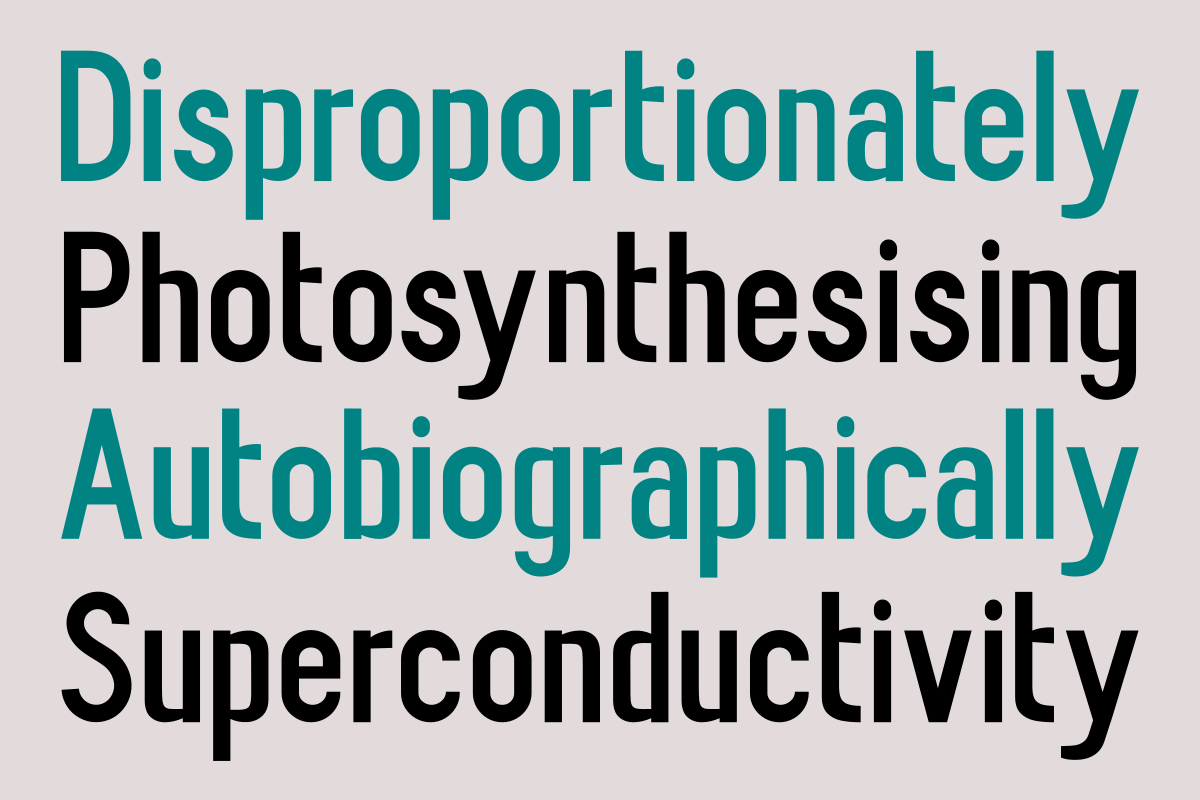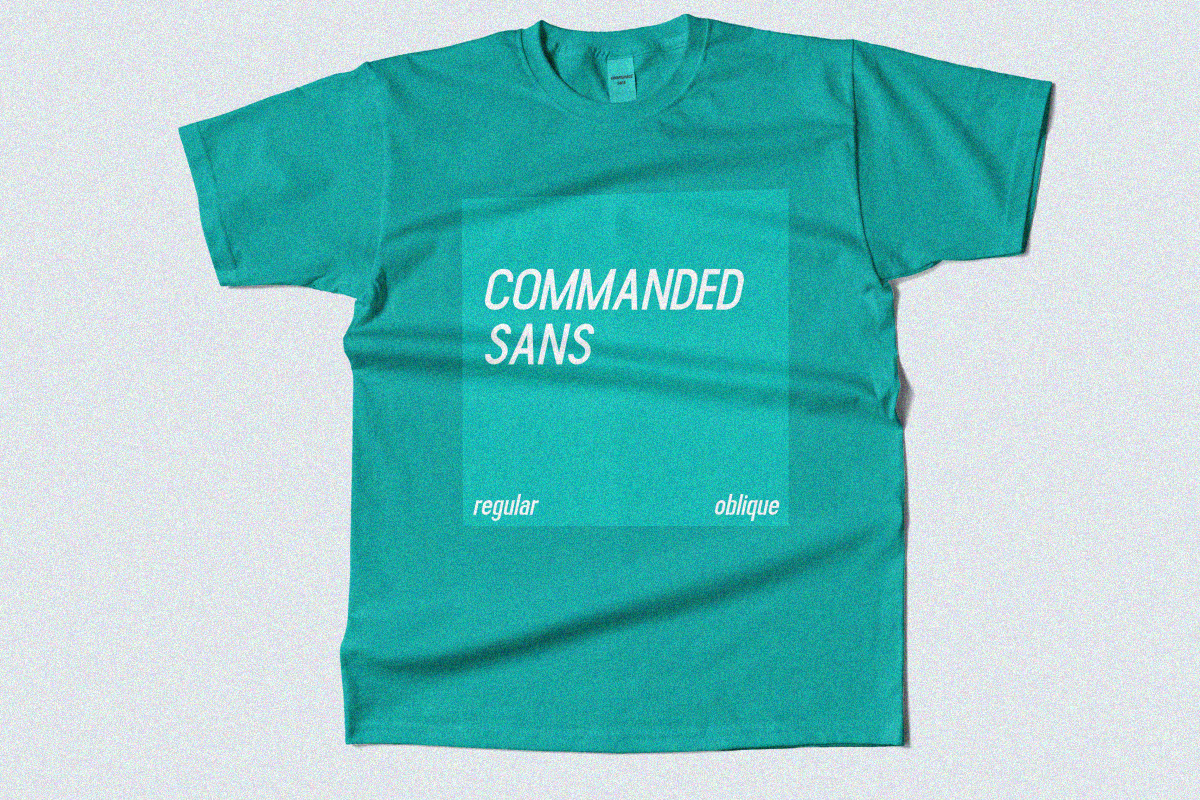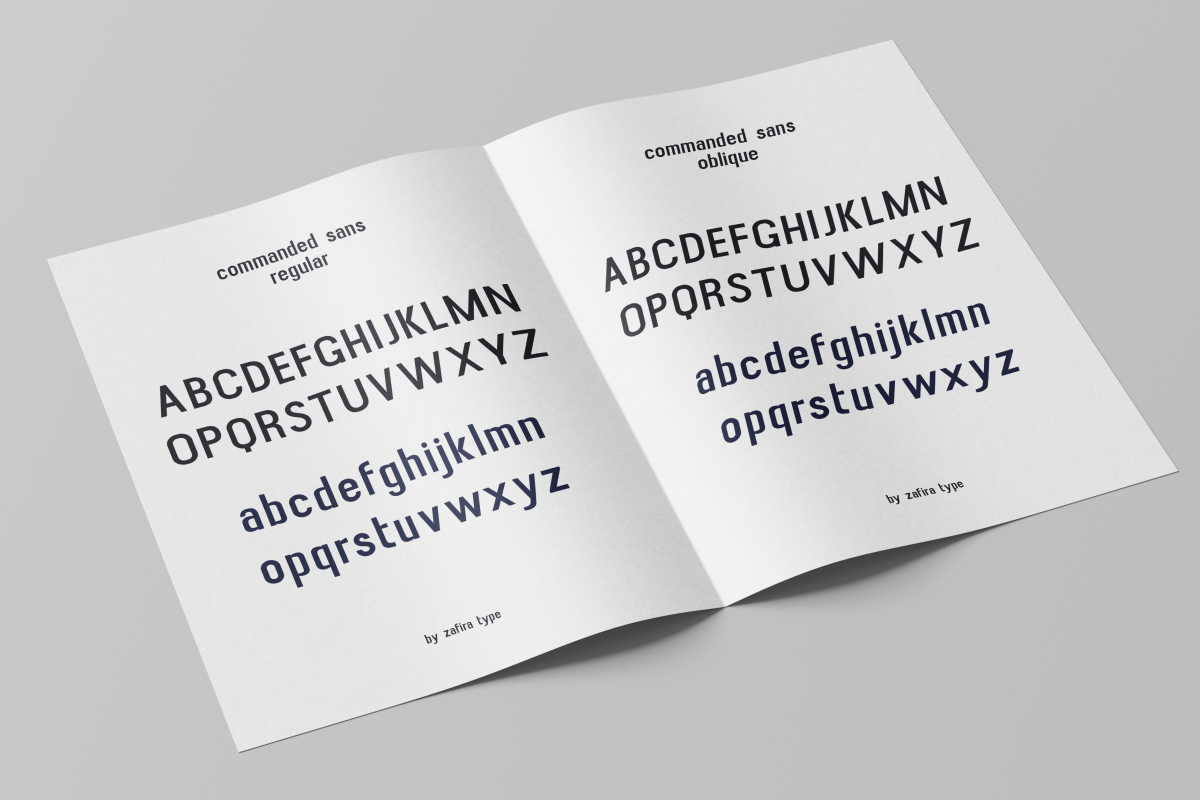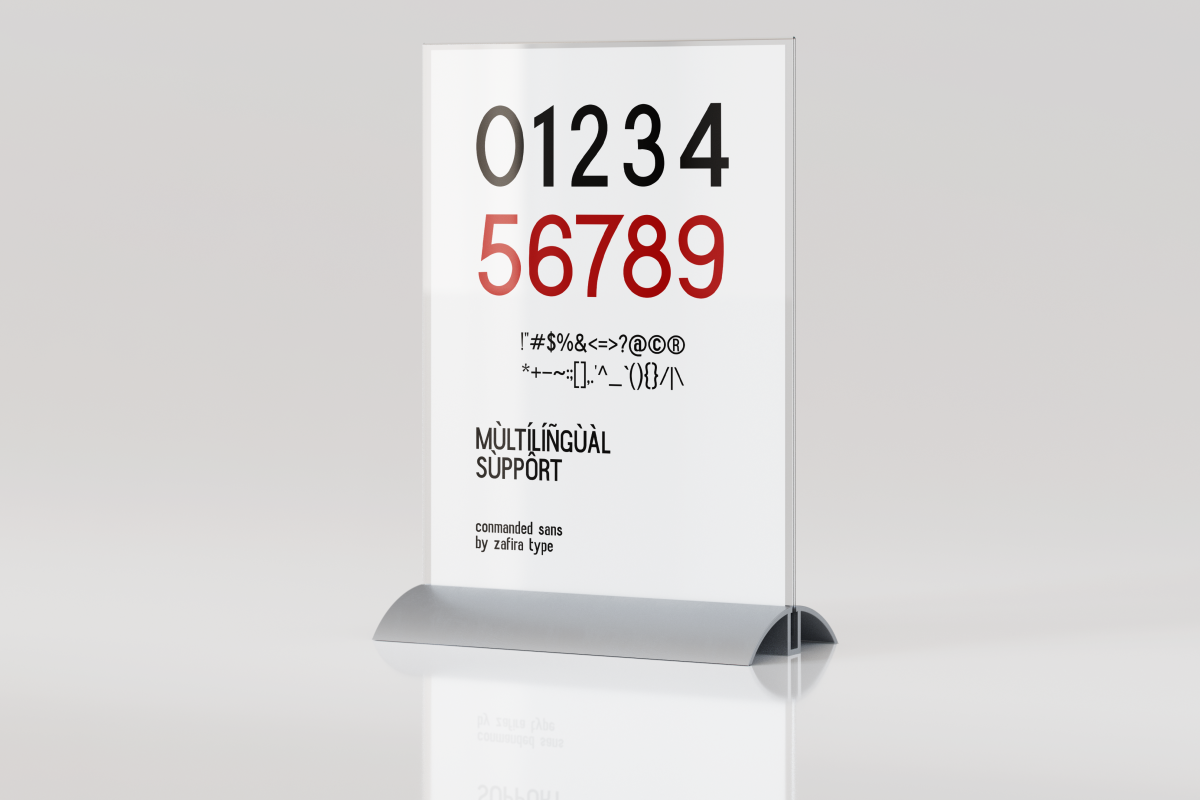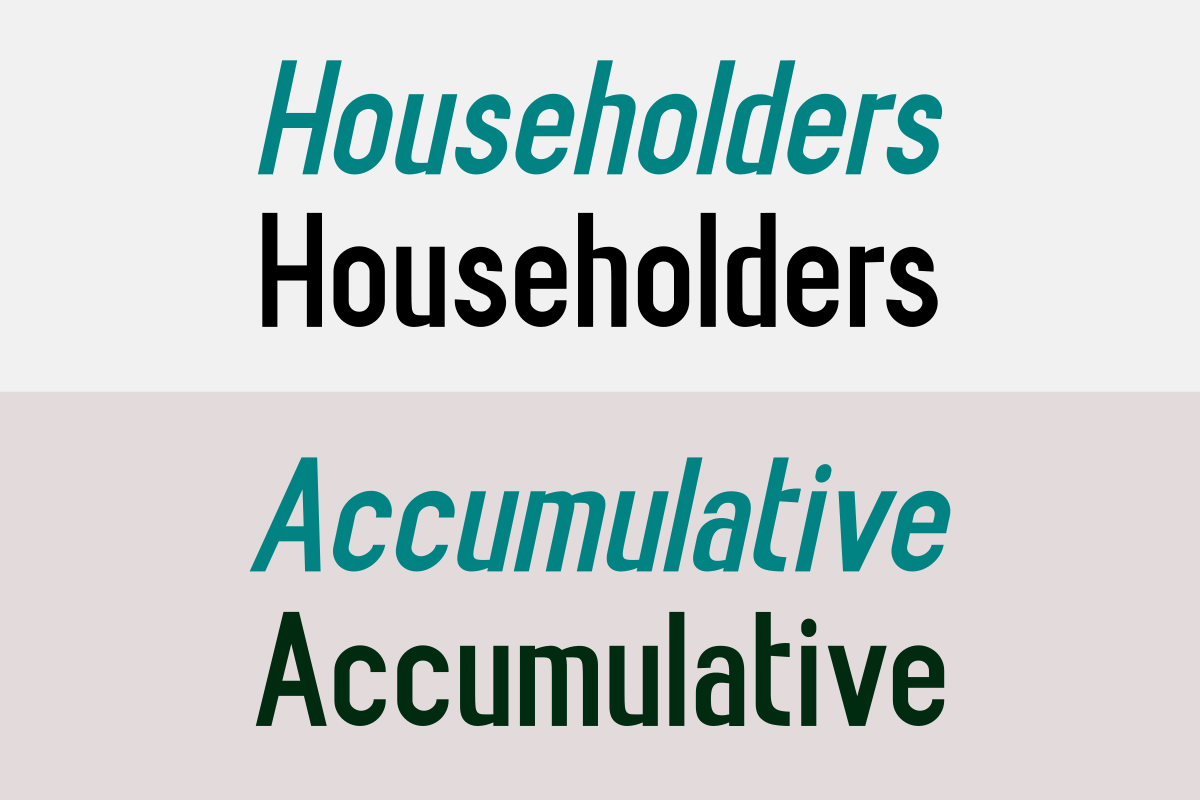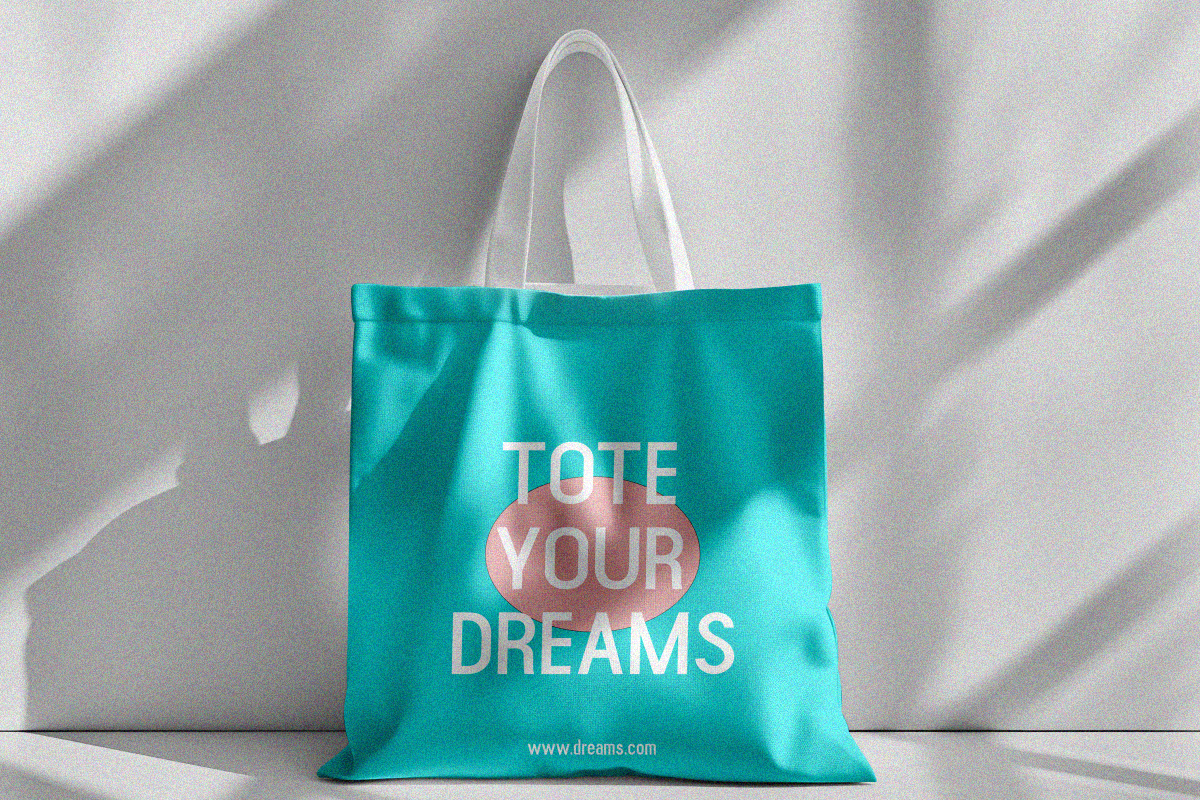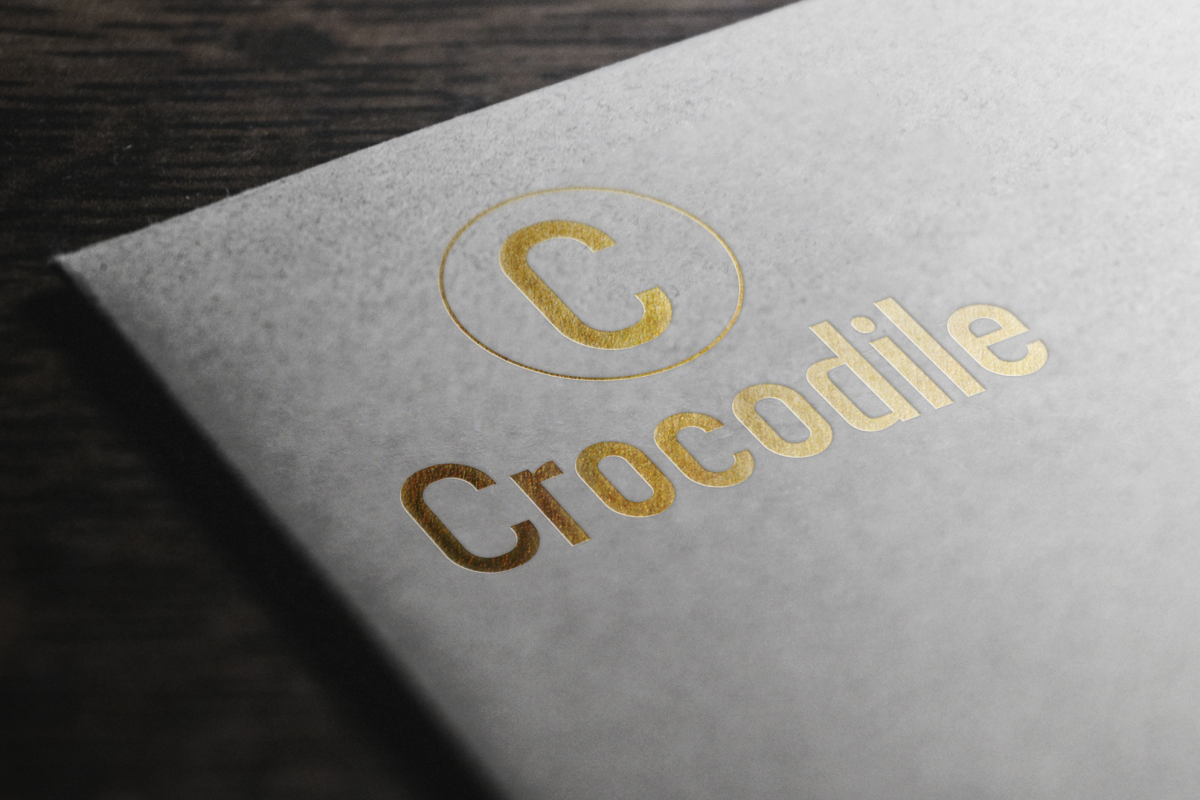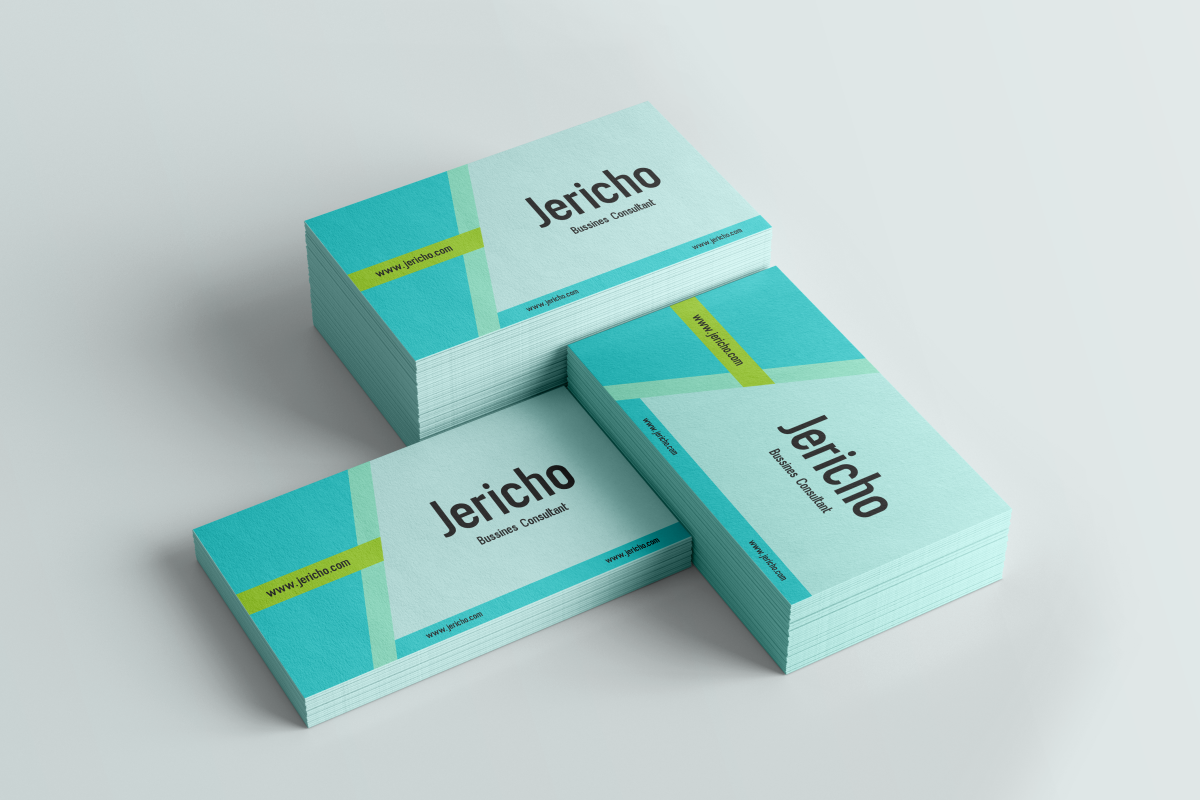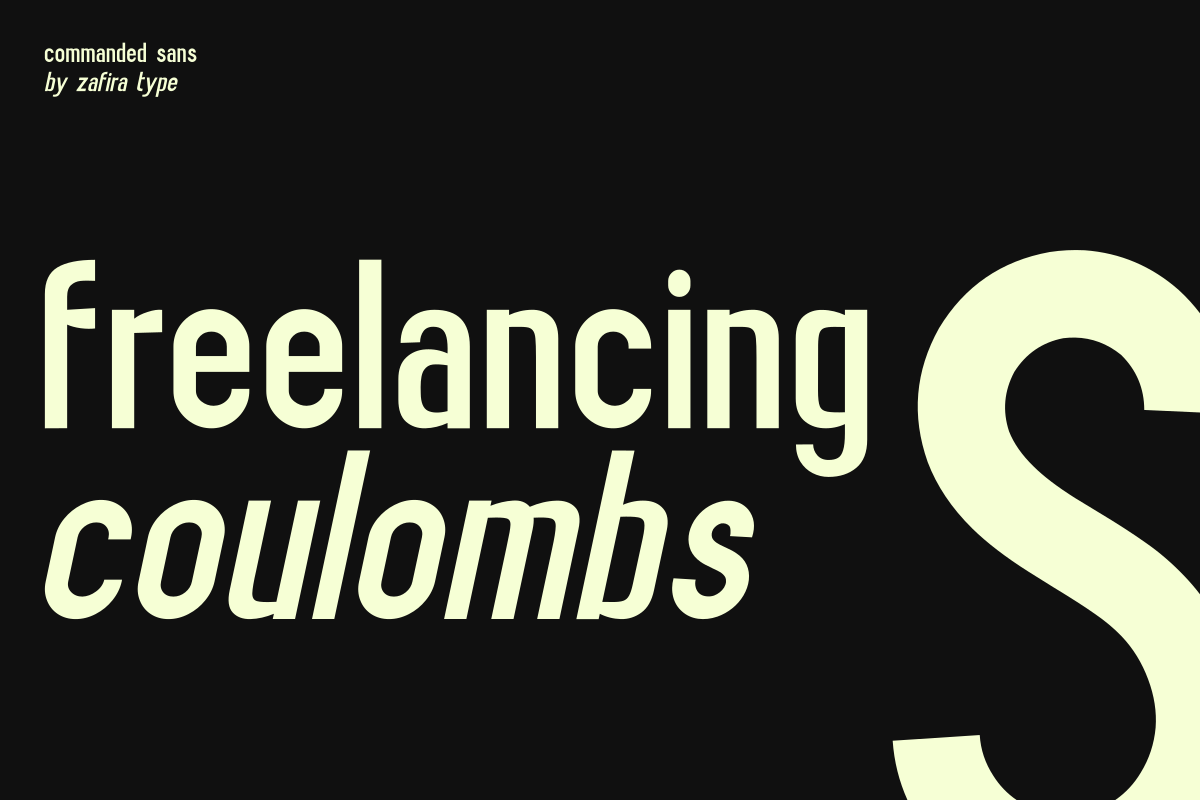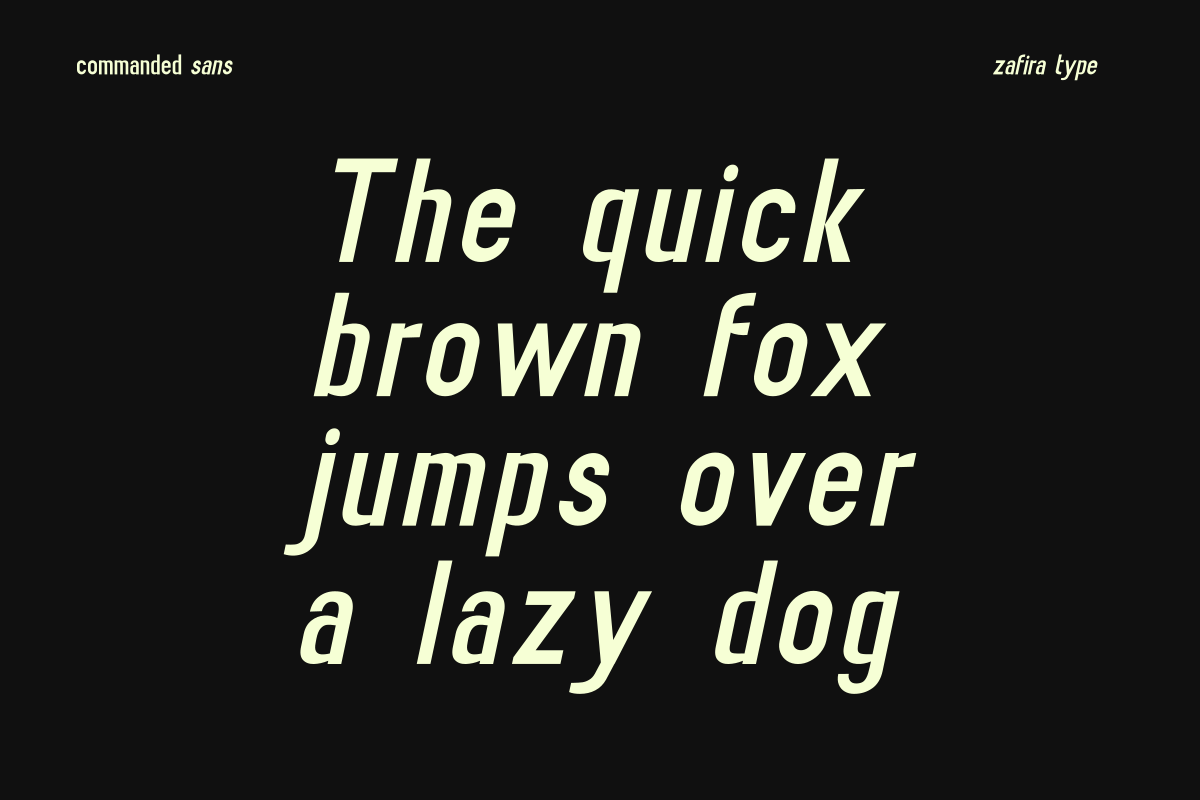
Comanded Sans
Commanded Sans is a sans serif font designed to convey a modern and professional impression, featuring two elegant styles: Regular and Oblique. With clean characters and harmonious proportions, this font is ideal for a variety of design applications. Commanded Sans is the perfect choice for designers seeking a blend of sophistication and functionality. With its complementary styles, this font is ready to add a professional touch to every project you undertake.